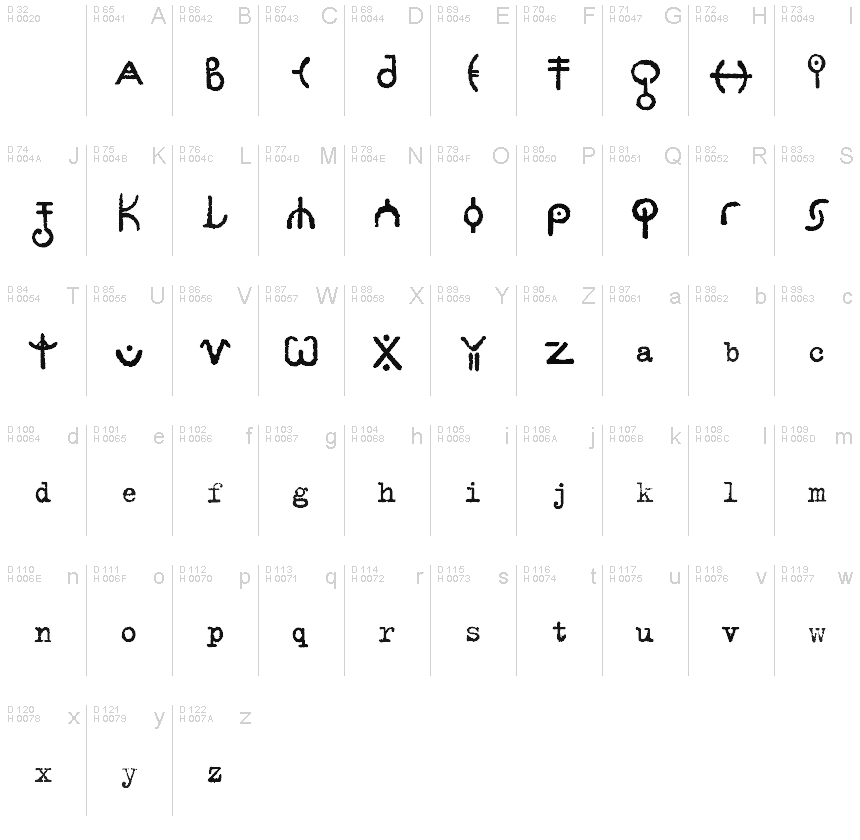
signs - zeichen 2.0
Signs - Zeichen 2.0 is a striking display font from the creative mind of Jens R. Ziehn that stands out with its distinct handcrafted aesthetic. With an organic, almost primal appearance, each character in this font family seems to tell a story, reminiscent of ancient cave drawings or tribal symbols. The textured strokes and irregular shapes convey a sense of authenticity and personality that can add depth and intrigue to any design project.
The font's bold style and emotive presence make it particularly suitable for projects that require a touch of the unconventional or need to evoke strong feelings and connections with viewers. Whether used for branding, artistic posters, book covers, or event invitations, Signs - Zeichen 2.0 offers designers an opportunity to infuse their work with a sense of originality and raw charm.
Its unique character set is not just visually appealing but also conveys versatility within its niche as a display typeface. It's this balance between aesthetic appeal and creative potential that makes Signs - Zeichen 2.0 an invaluable addition to any designer’s toolkit seeking to break free from the constraints of traditional typography.
The font's bold style and emotive presence make it particularly suitable for projects that require a touch of the unconventional or need to evoke strong feelings and connections with viewers. Whether used for branding, artistic posters, book covers, or event invitations, Signs - Zeichen 2.0 offers designers an opportunity to infuse their work with a sense of originality and raw charm.
Its unique character set is not just visually appealing but also conveys versatility within its niche as a display typeface. It's this balance between aesthetic appeal and creative potential that makes Signs - Zeichen 2.0 an invaluable addition to any designer’s toolkit seeking to break free from the constraints of traditional typography.
by Jens R. Ziehn